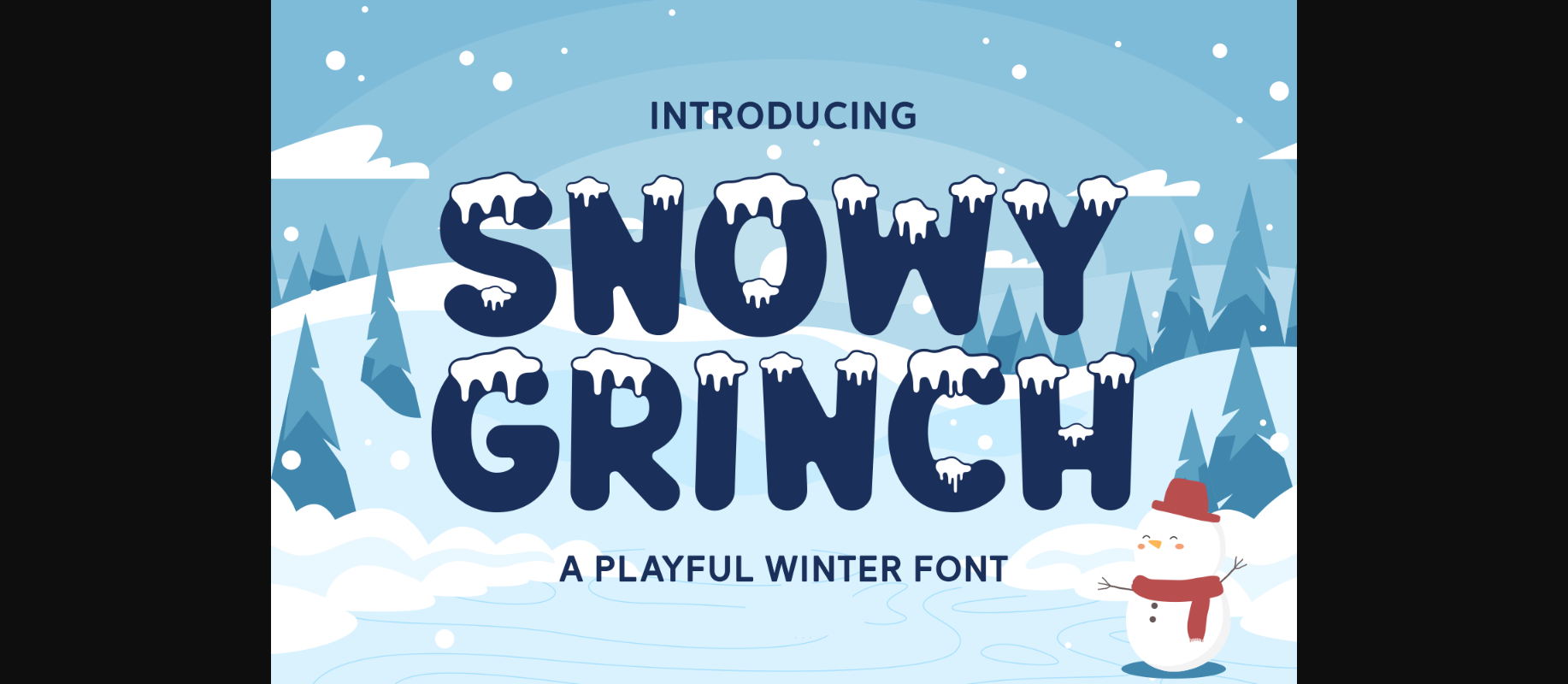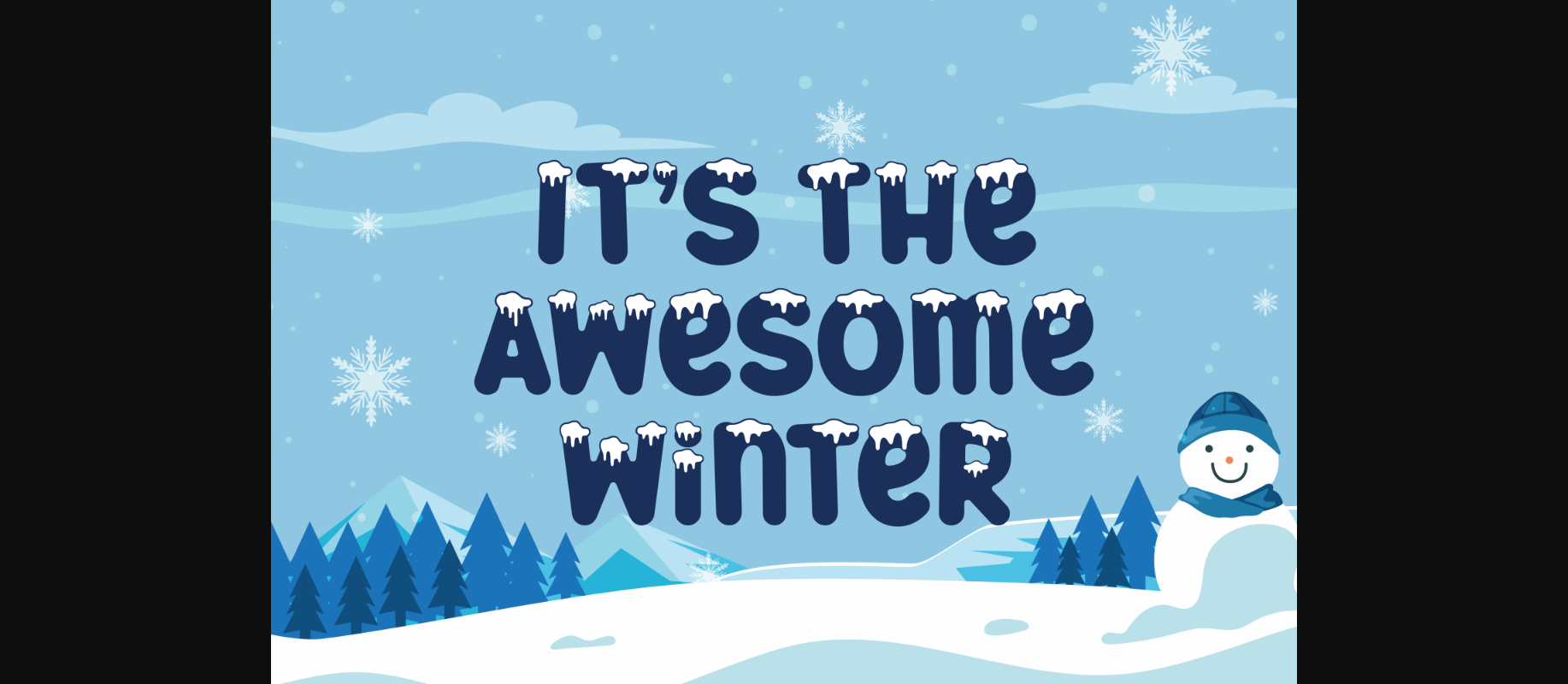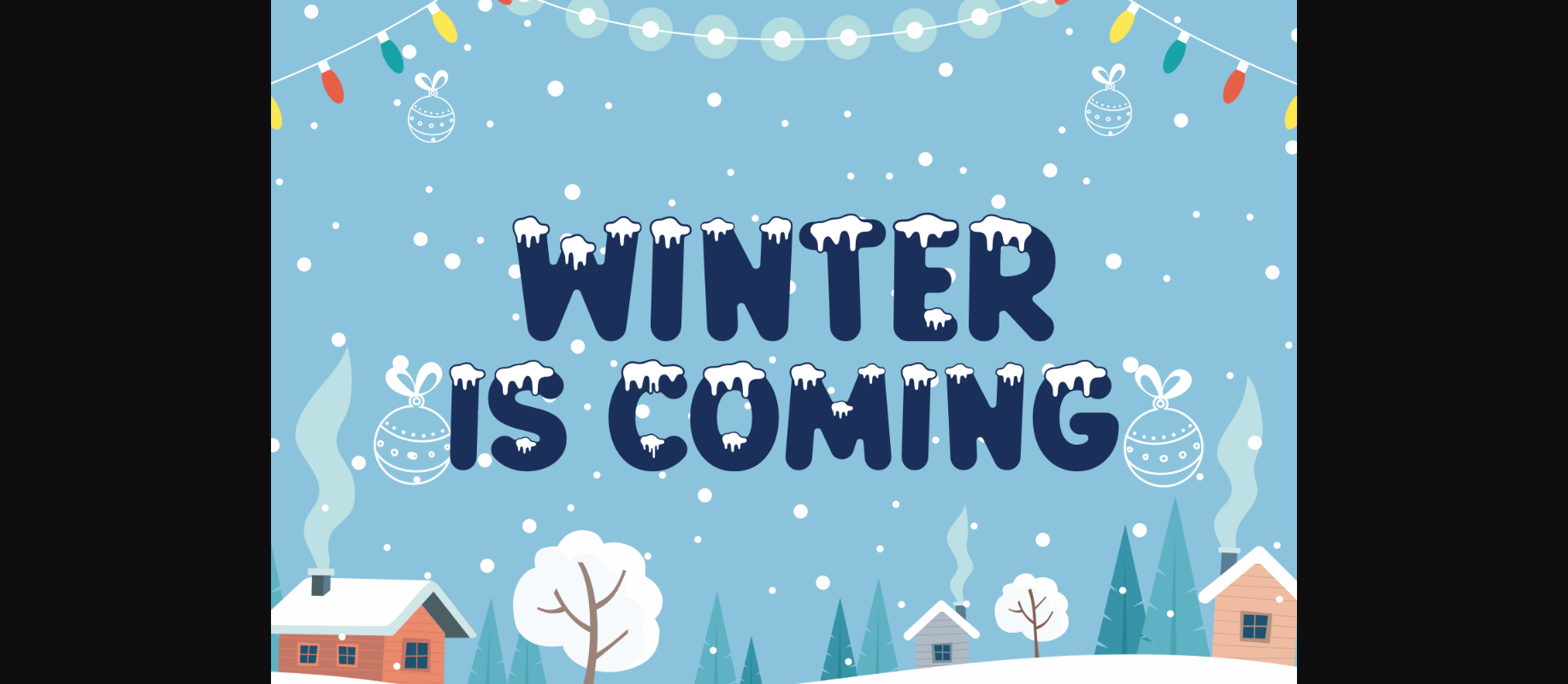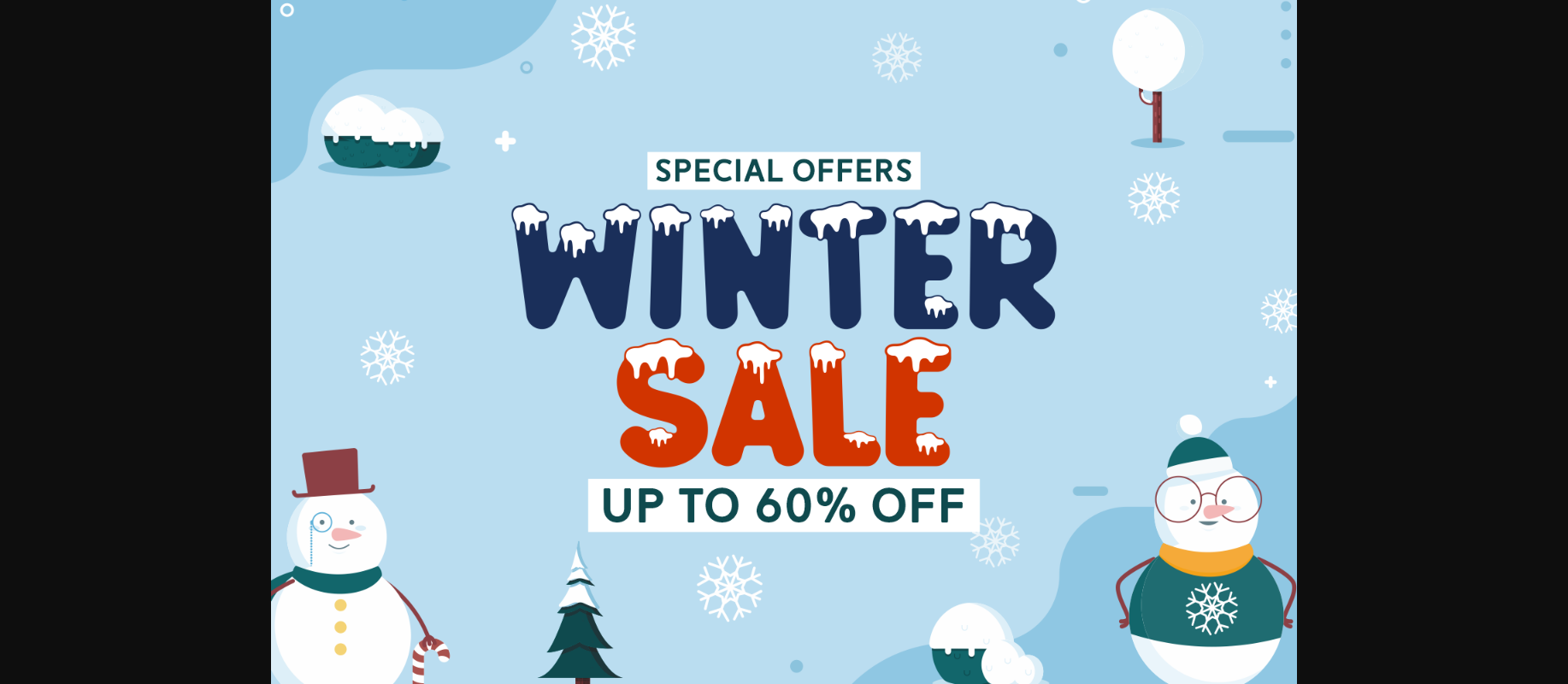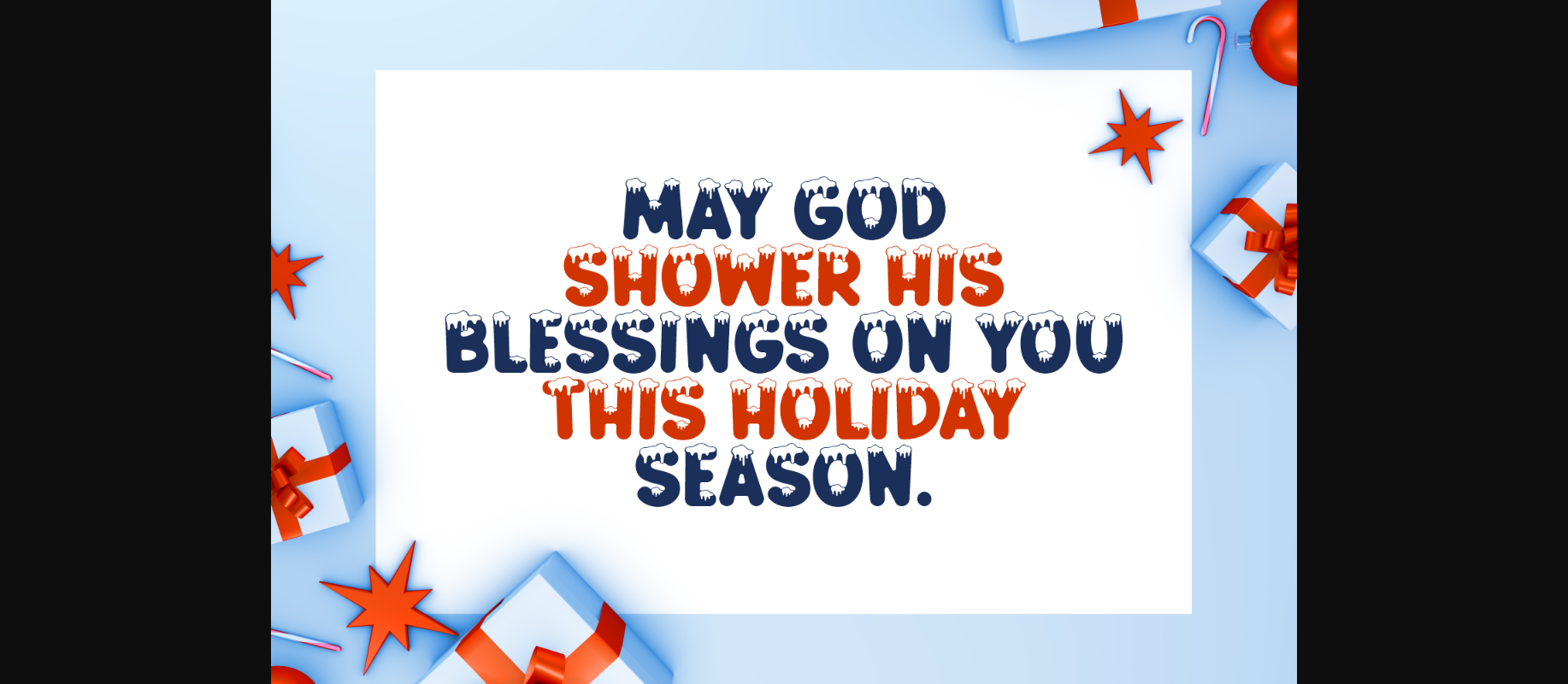
About Snowy Grinch Font
Snowy Grinch is a charming winter display font that captures the magic of the season. Each letter is adorned with a delicate dusting of snow, adding a touch of whimsy and nostalgia to your designs. Perfect for holiday-themed projects and winter wonderland creations, Snowy Grinch brings a frosty, festive vibe to your text with its playful, snow-covered letters.